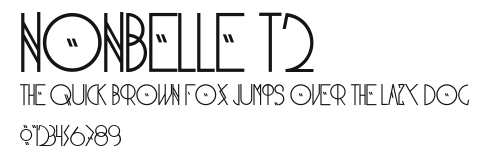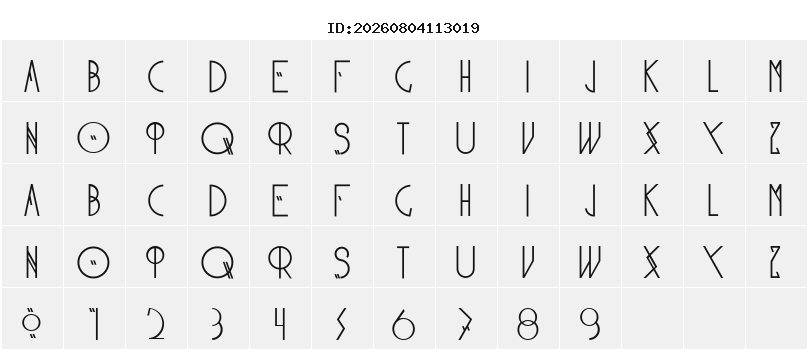
• Font Name: NonBelle T2
• Full Font Name: NonBelle T2
• PostScript Name: NonBelleT2
• Designer: Justine Lazo
About NonBelle T2.ttf
NonBelle T2.ttf is a modern, elegant sans-serif font designed for ultimate readability and visual harmony. Perfect for branding, headlines, web design, and print materials.